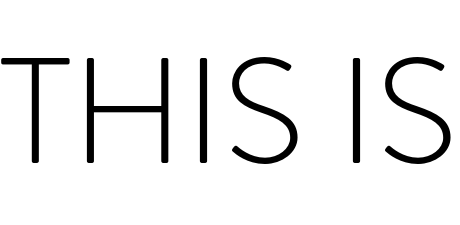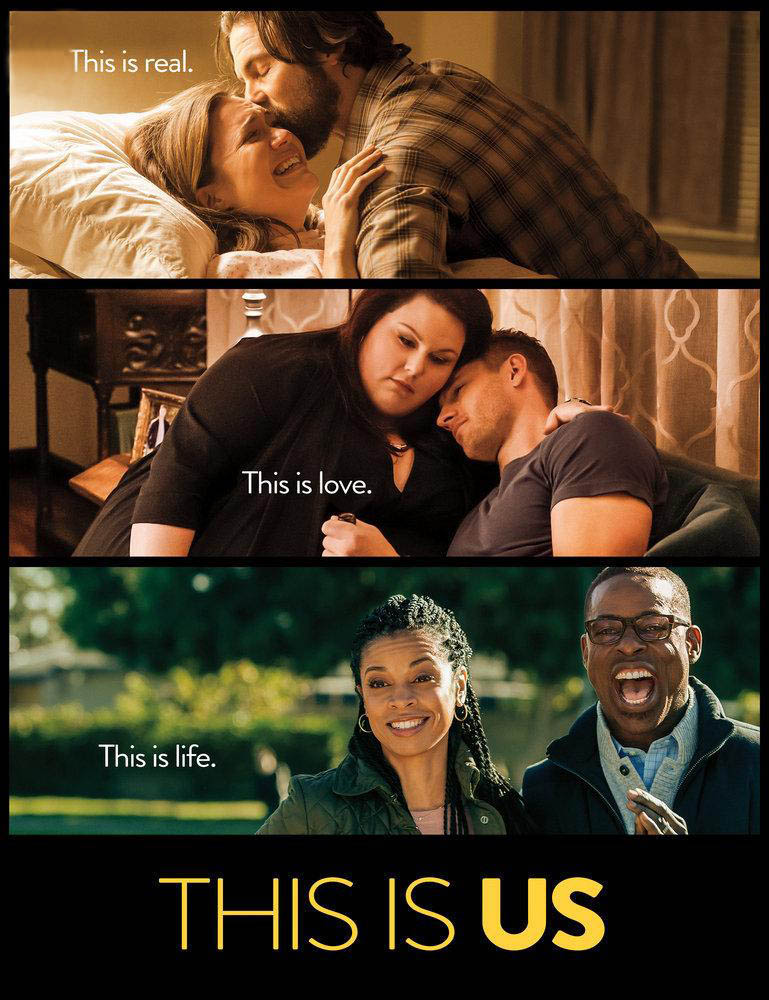
This Is Us Font
ComedyThis Is Us is an American television series created by Dan Fogelman that premiered on NBC in 2016. The show follows the lives and connections of the Pearson family across multiple timelines.
The title of the TV show is displayed in two variants of Brandon Grotesque font, where 'THIS IS' is set in light weight and 'US' is set in black weight. Designed by Hannes von Döhren in 2009-2010, Brandon Grotesque is a geometric sans serif with 6 variations and matching italics.